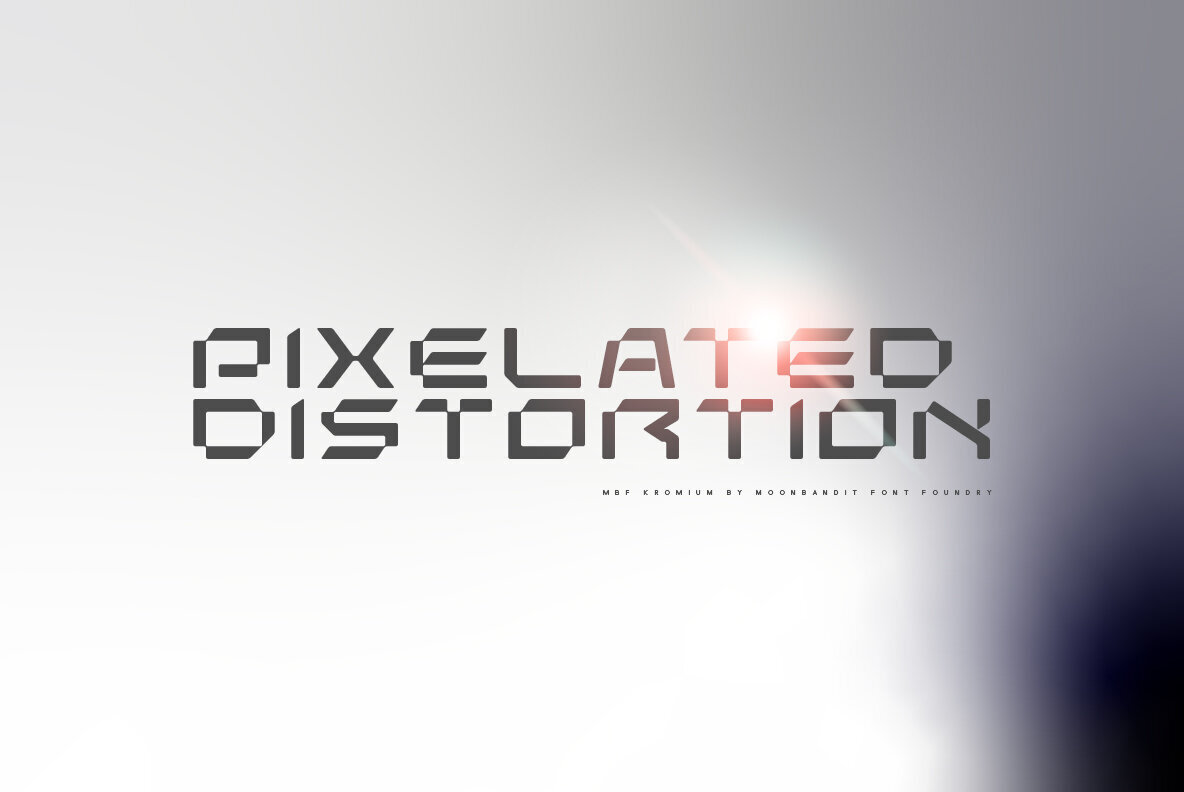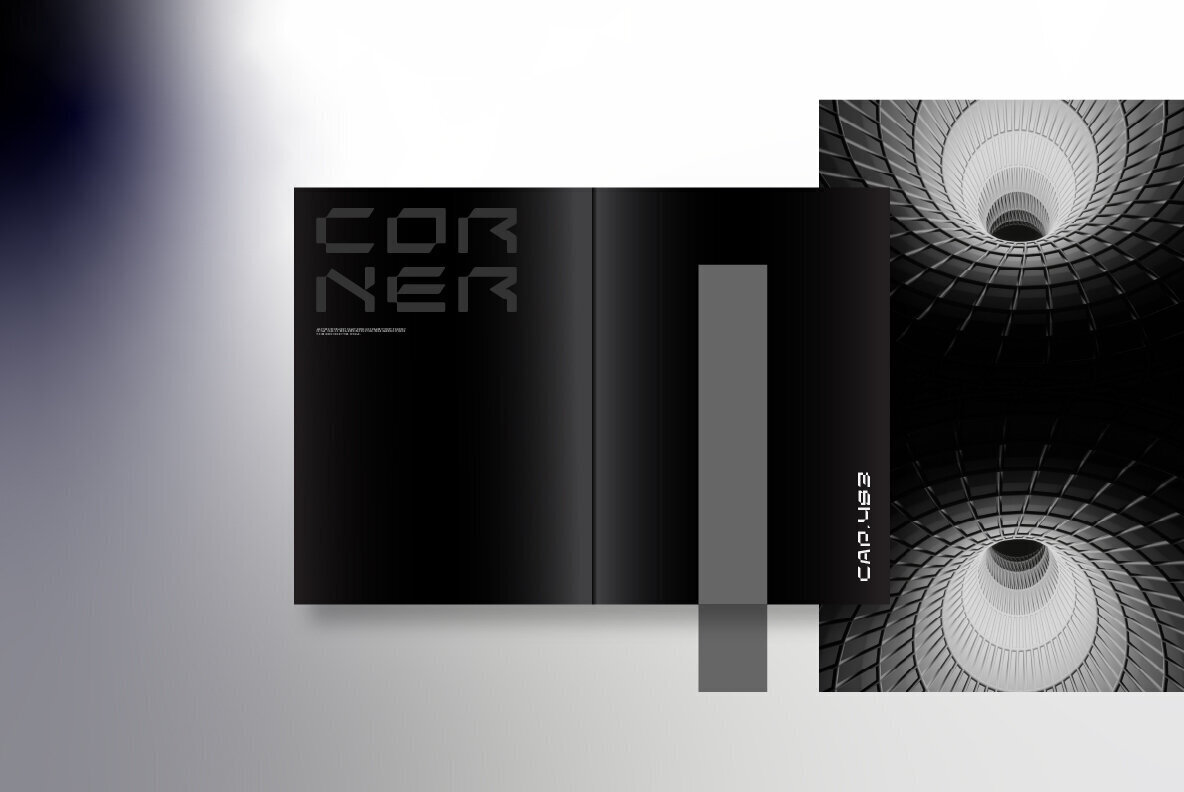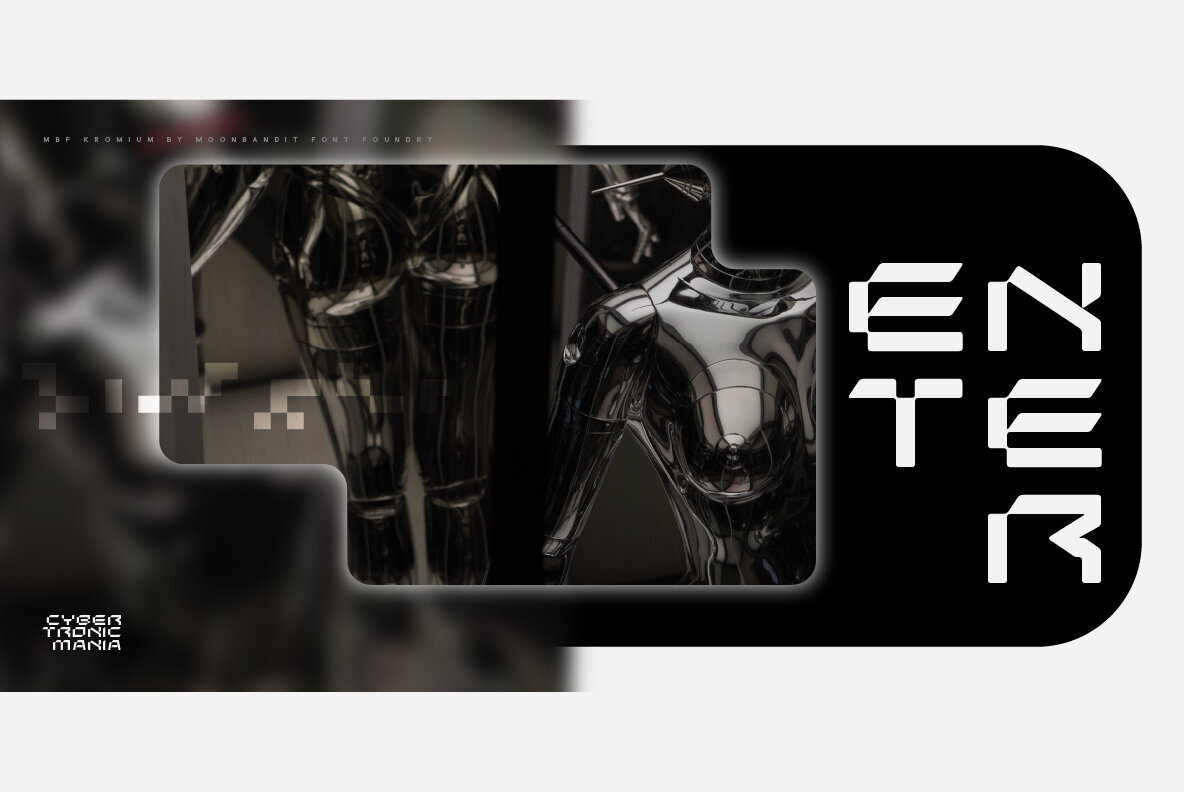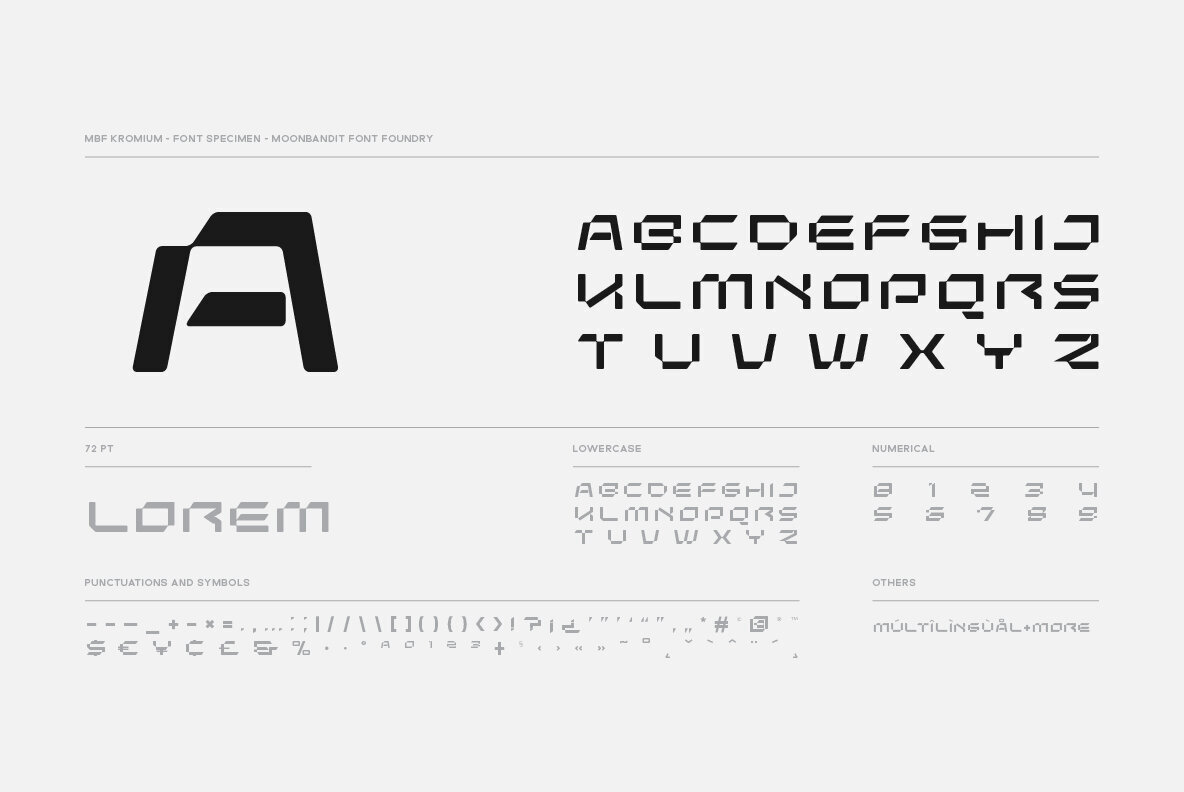
MBF Kromium 1
Kromium is a wide modern futuristic scifi sans serif display font. This typeface is heavy on the cyberpunk mecha theme with a minimalist approach. Best use as logo, poster, display, headline, t-shirt design and many more.